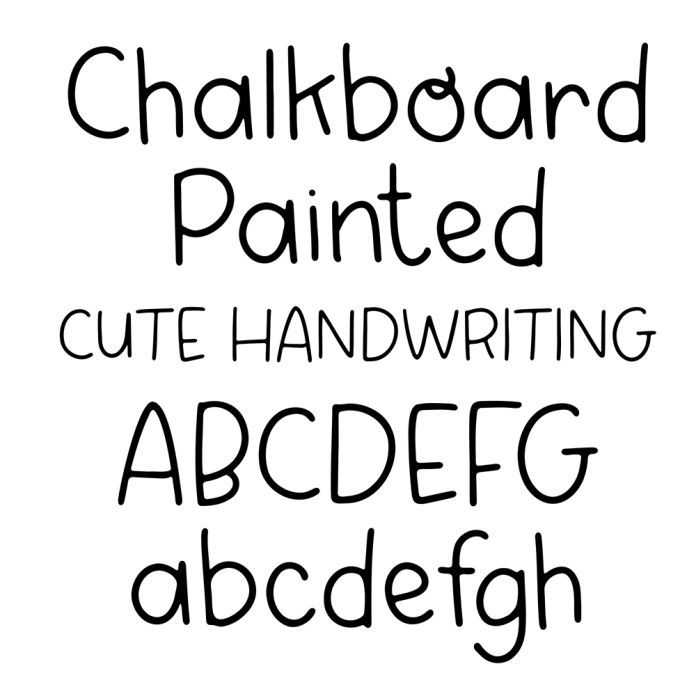
BFC Chalkboard Painted School Kids Handwriting Font
Chalkboard Painted is a cute kids handwritten font perfect for back-to-school and planner designs.